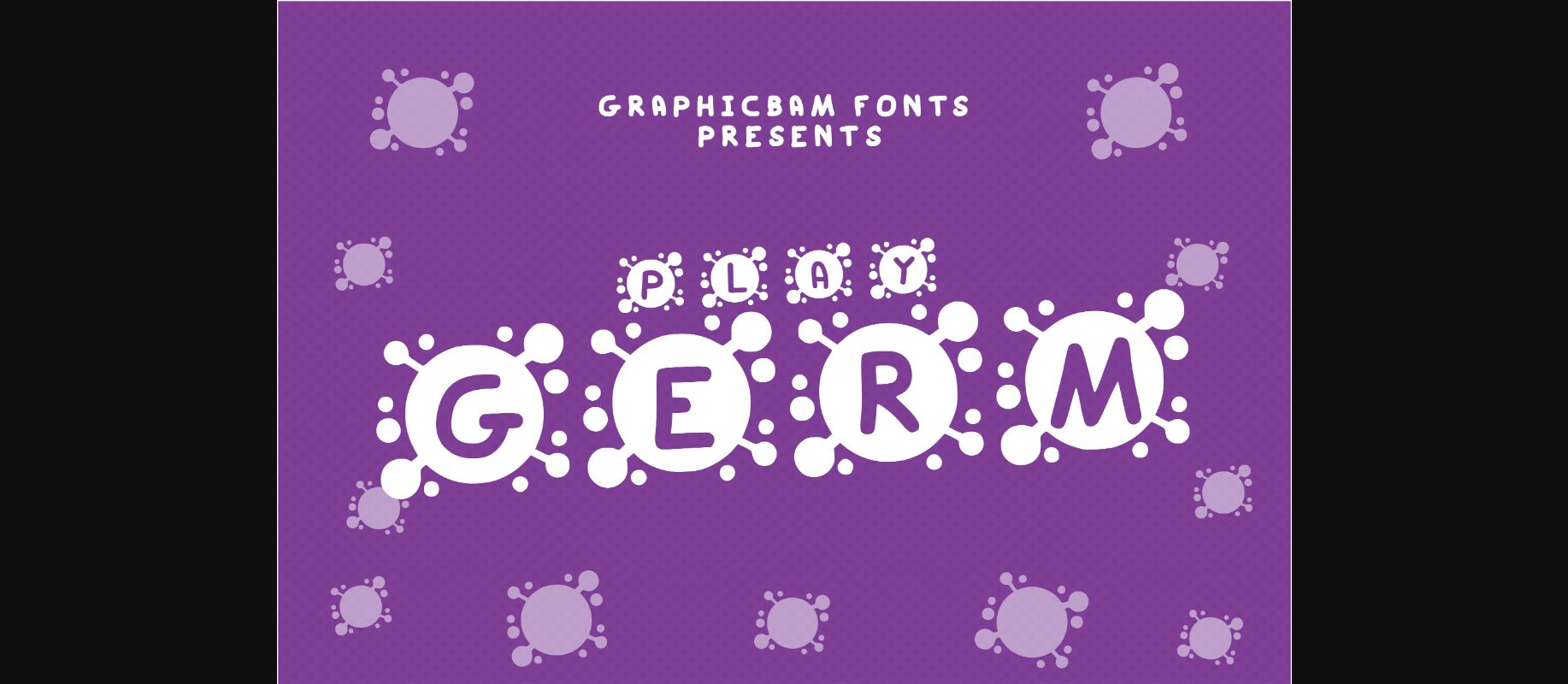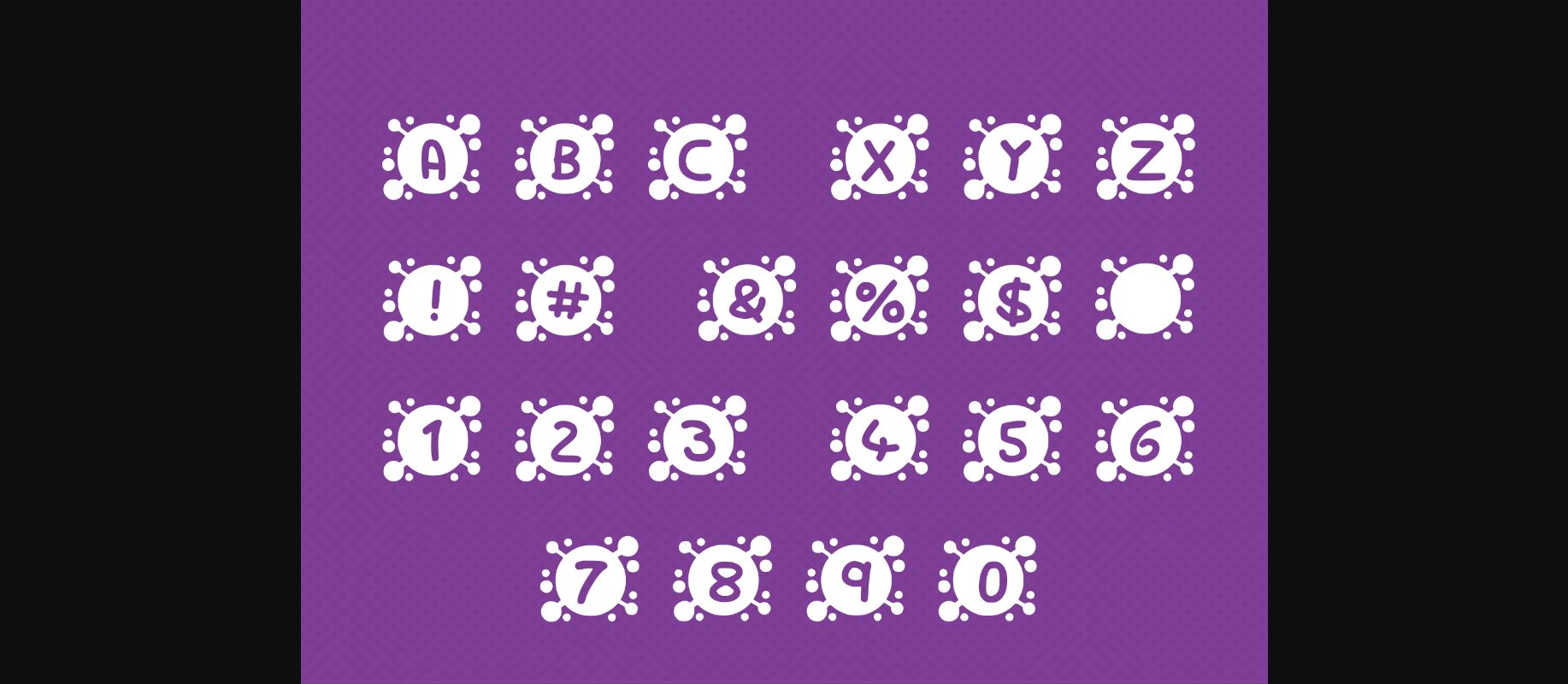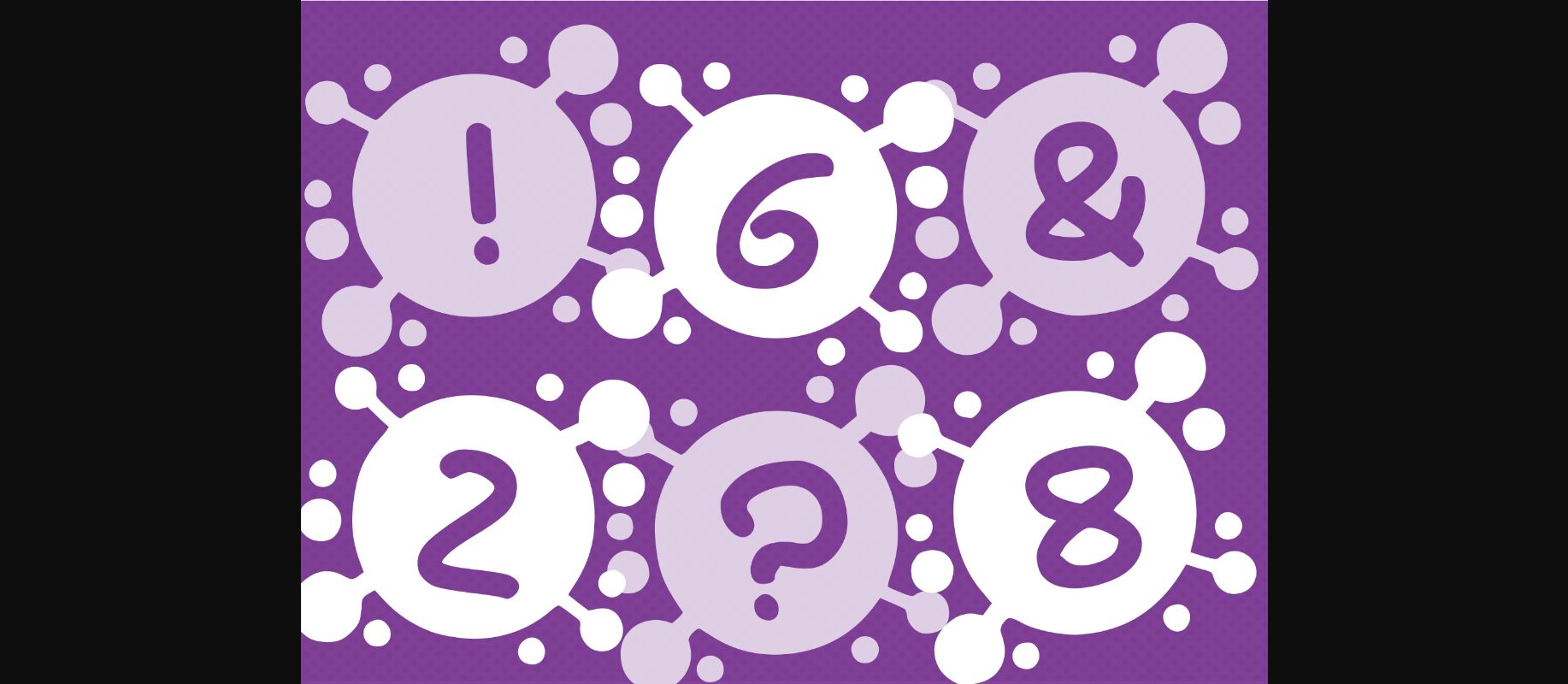
About Play Germ Font
Play Germ is an interesting germ-shaped decorative font, perfect for medical-related projects, educational designs, school presentations, and many other creative ideas!